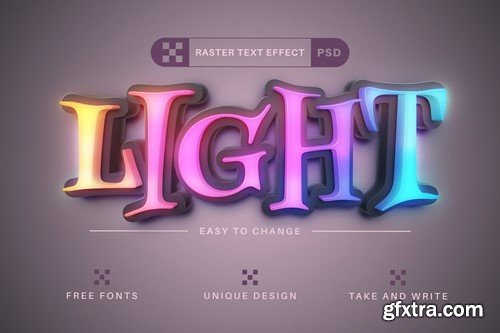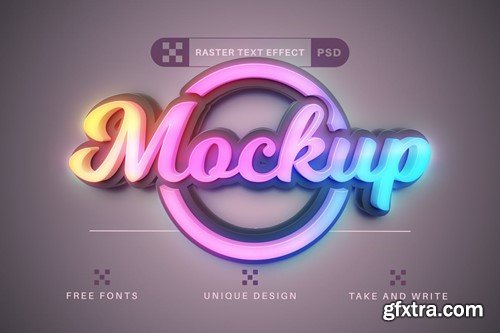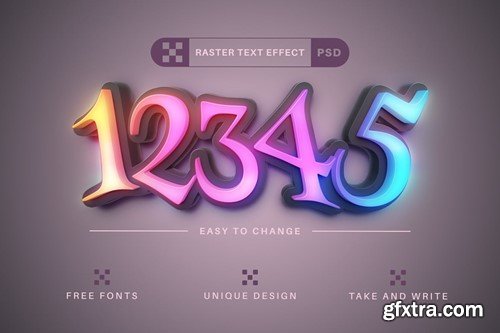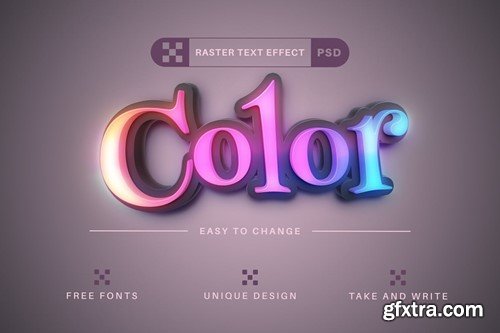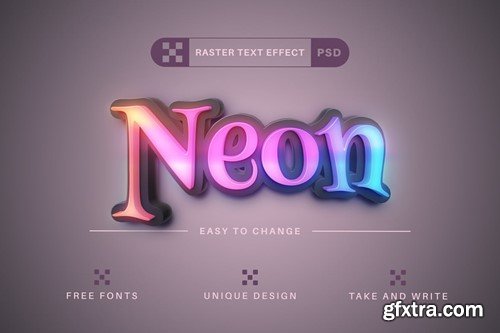
霓虹灯光 - 可编辑文字效果,字体样式7NKUTBC
Hello! I'm glad to introduce my new raster text effect "Neon Light". Just double-click on the "YOU TEXT HERE" layer, write your word and the effect will apply! Be as creative as you like to be in expressing yourself using this unique text effect. The effect is perfect for any project that needs a unique handy touch whatever else your imagination leads you to! Raster format! Use Photoshop СС2014 to edit the effect. ZIP archive contains: About format files: By finding mistakes and misprint you are helping to make the store better. If you find an error in my files – write me about the problem. I’ll fix it. Hope you like it! Best regards, Aleksandr Gusev